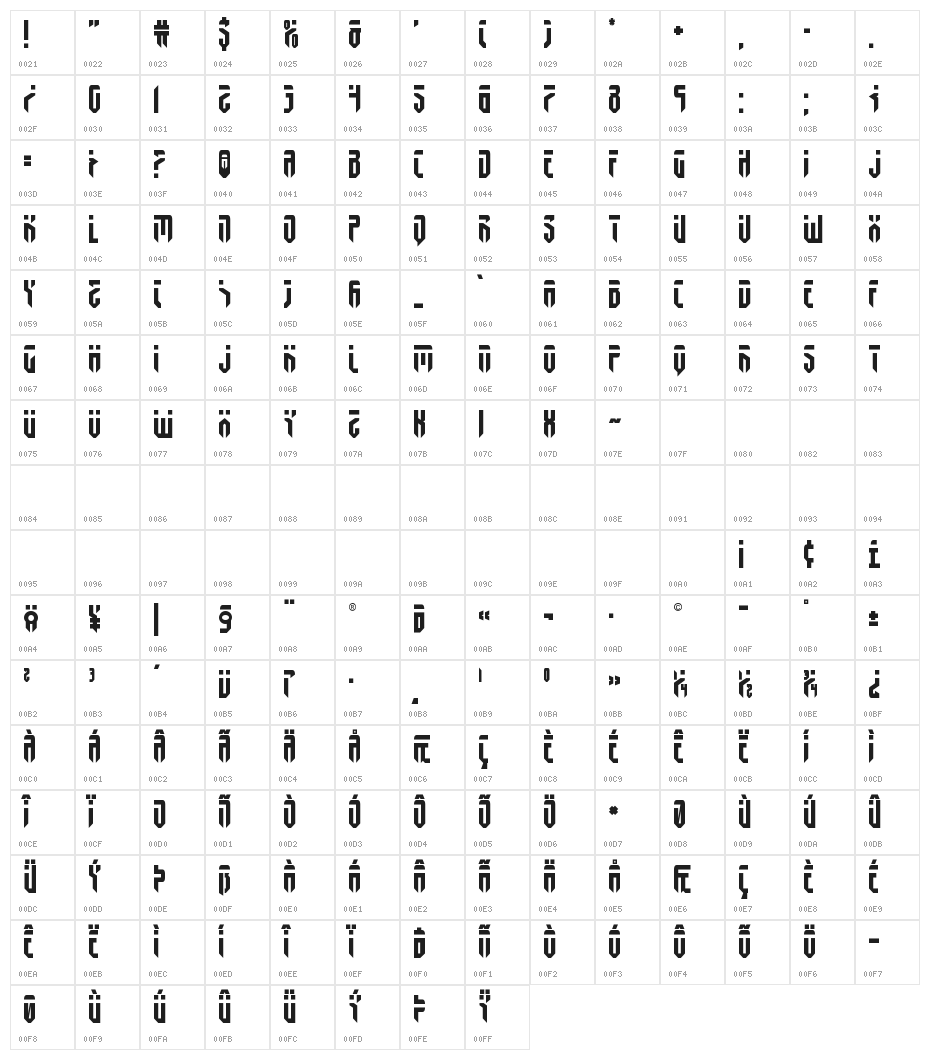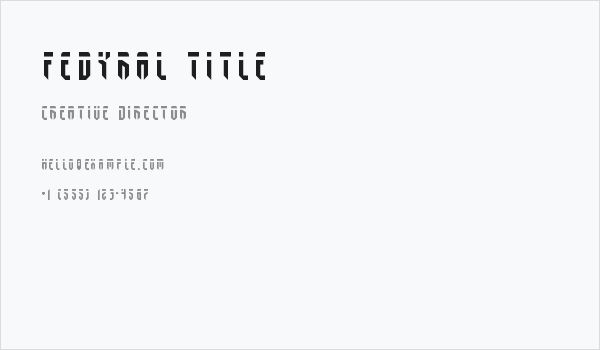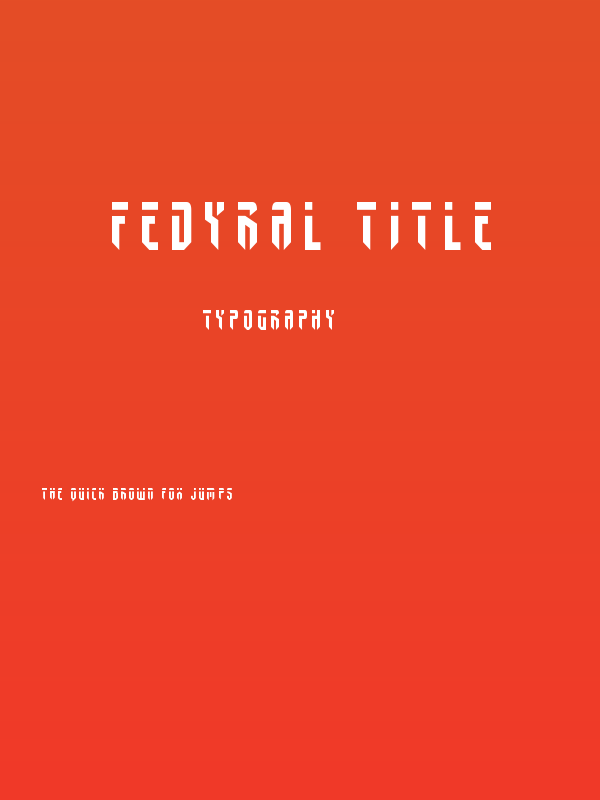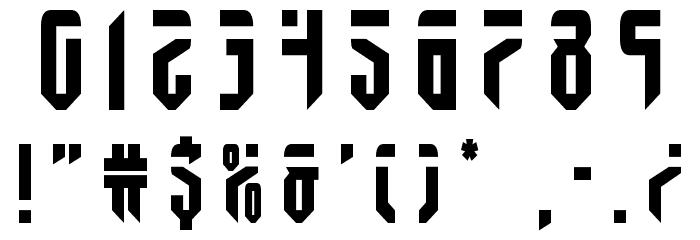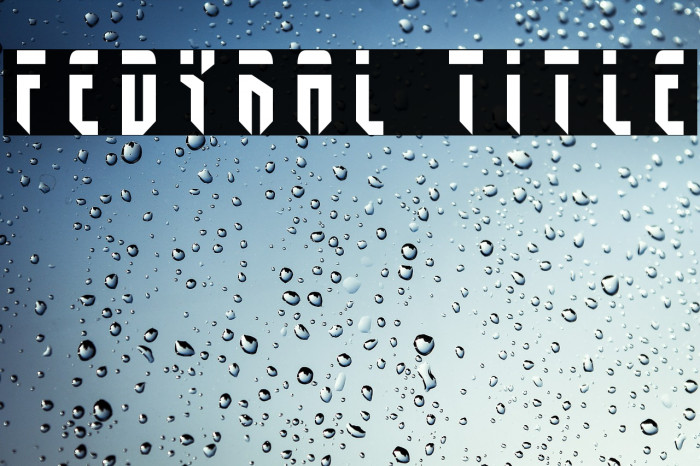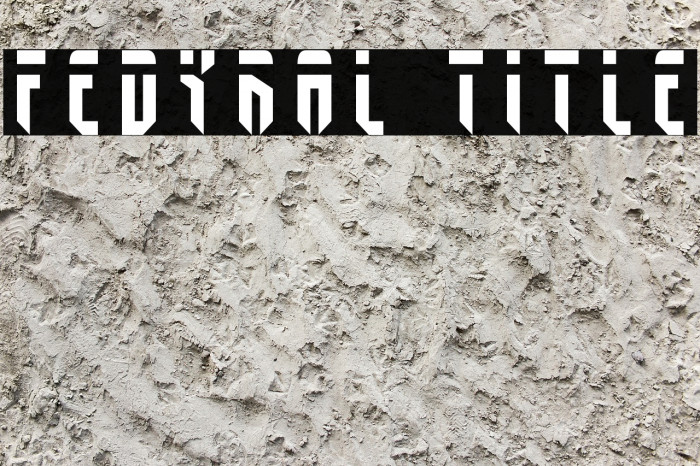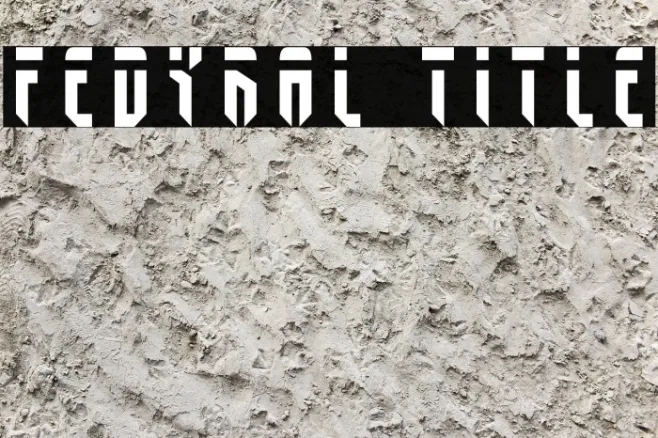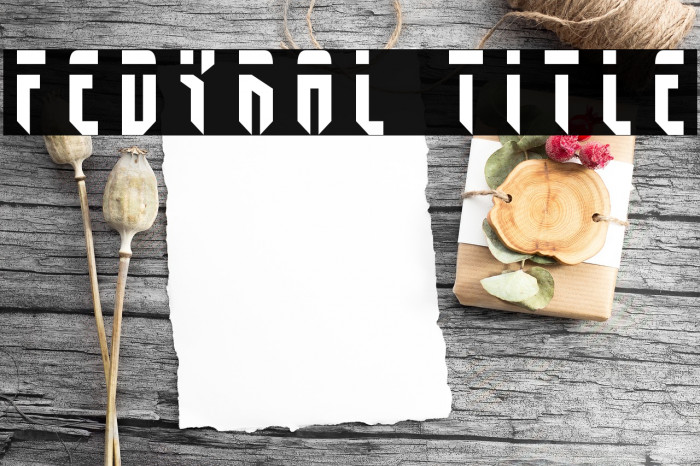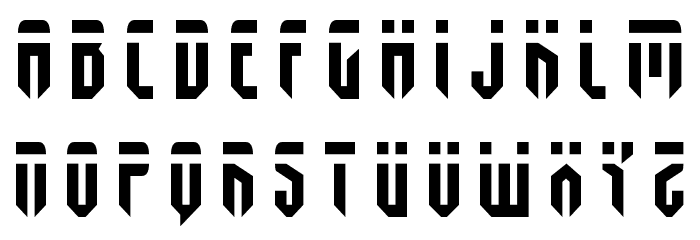
Fedyral Title Font
Fedyral Title Description
This font features a bold and geometric design with a futuristic and industrial feel. The characters are constructed with sharp angles and straight lines, giving them a strong and assertive appearance. The uppercase and lowercase letters maintain a consistent style, with unique cuts and edges that add a distinctive flair. Numbers and special characters follow the same design principles, ensuring uniformity across all glyphs. The font's boldness and angularity make it highly suitable for impactful and modern designs.
| Proposed Projects | Ideal for branding, posters, video game titles, and any project requiring a modern and assertive typeface. |